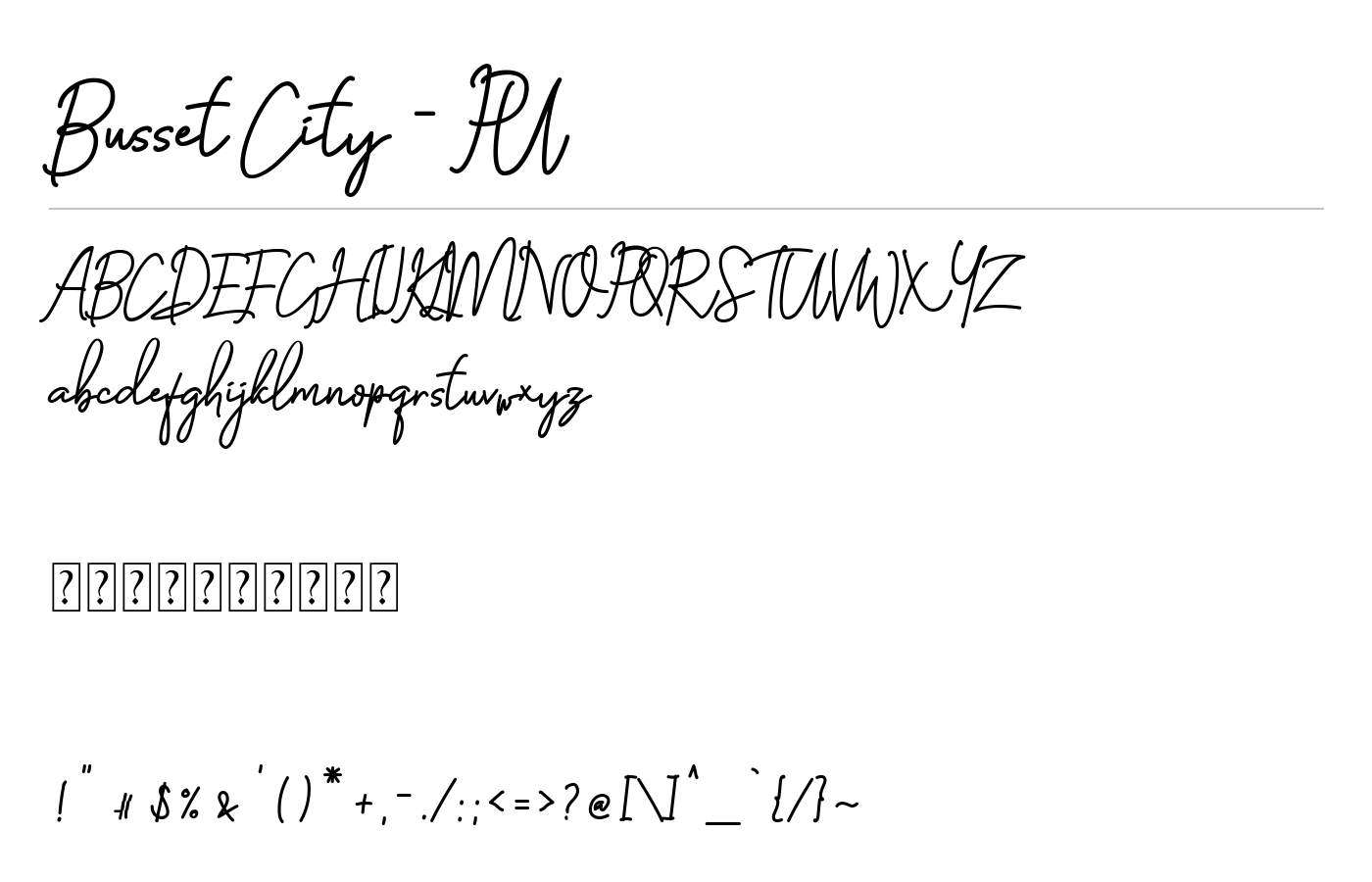
Busset City - PU is a lively and elegant handwritten script font with a casual, flowing style that mimics natural penmanship. Its slender strokes and playful character shapes give it a friendly yet sophisticated feel, making it perfect for personal branding, invitations, and creative projects that desire a warm, approachable touch. This font works well in headlines and logos where a unique, humanistic vibe is needed to connect with audiences.
Busset City - PU Font